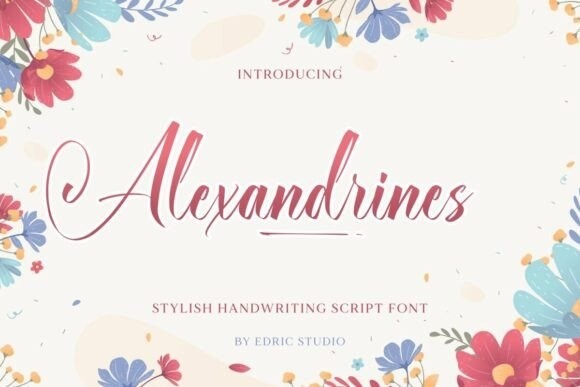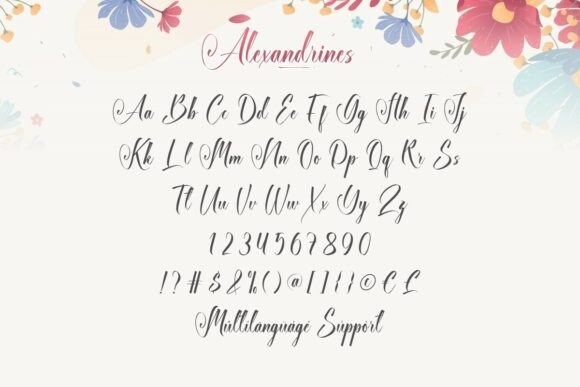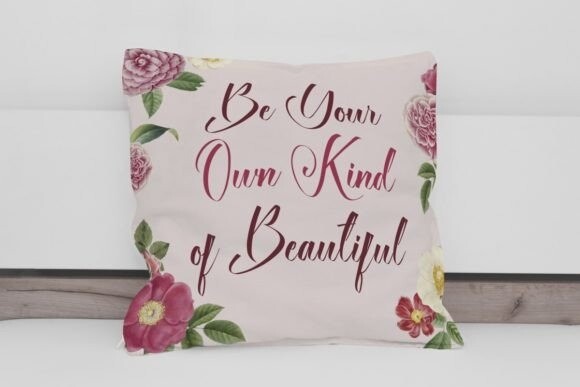
Alexandrines Font
Alexandrines Font is a stylish handwriting calligraphy font. This font is perfectly crafted and easy to read so it will be suitable for any industry such as accessories, boutiques, cosmetics, furniture, hotels, photography, restaurants, spa salons, wedding organizers, writers, and anything that requires a handwritten style brings luxury.
Alexandrines Font comes with a full set of Uppercase and Lowercase Basic Characters, Numbers, a large range of Punctuation and Symbols, as well as Ligature and swoosh. It has a stunning character set, perfectly managed with well-spaced and kerning. Alexandrine Font will be great for any projects (with extended) including art frames, brand logos, custom case phones, headlines, labels, magazine catalogs, packaging design, screen printing, stationery, template menus, etc.